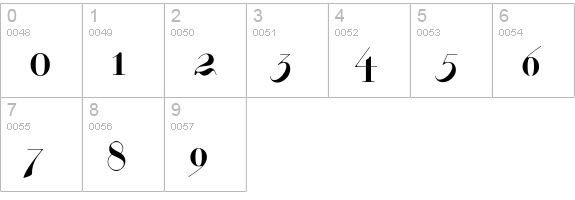
Paris Pro Bold Exit Font Details
Paris Pro Bold Exit is a strong, high-contrast variant in the Paris typeface family \xE2\x80\x94 well suited to headlines, attention-grabbing titles, and strong calls-to-action.
Paris Pro Bold Exit font is a striking and modern typeface that exudes confidence and sophistication. With its bold and impactful design, this font is perfect for creating eye-catching headlines, titles, and branding materials. The strong geometric shapes and clean lines make Paris Pro Bold Exit a versatile choice for a wide range of design projects. What sets this font apart is that it is available for free download at FontsMarket.com. This means you can easily access and use this stylish font in your creative endeavors without any cost. Whether you're designing a poster, logo, website, or any other visual content, Paris Pro Bold Exit font will make a bold statement and elevate your design to the next level. Don't miss out on the opportunity to enhance your projects with this sleek and modern typeface, download Paris Pro Bold Exit for free today!